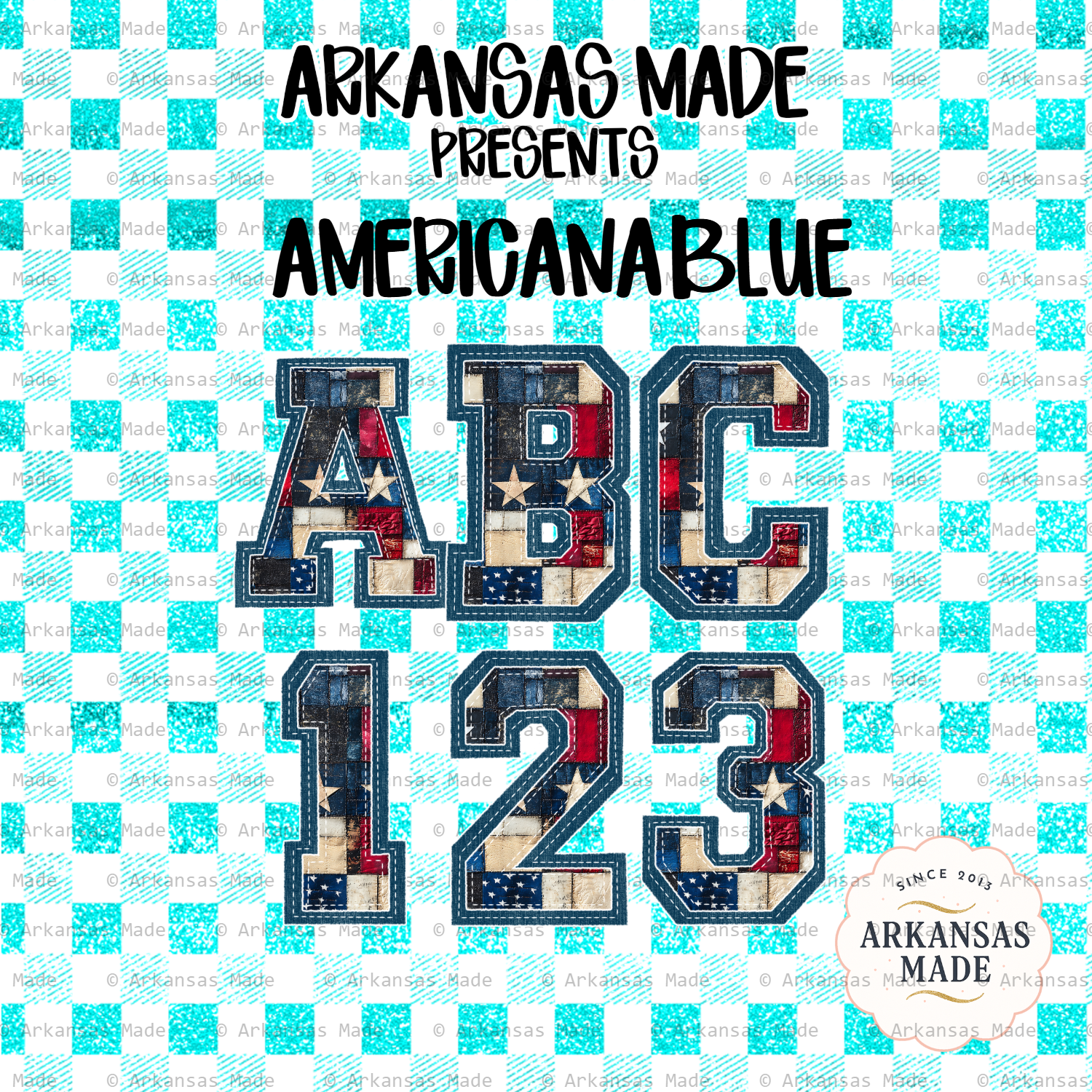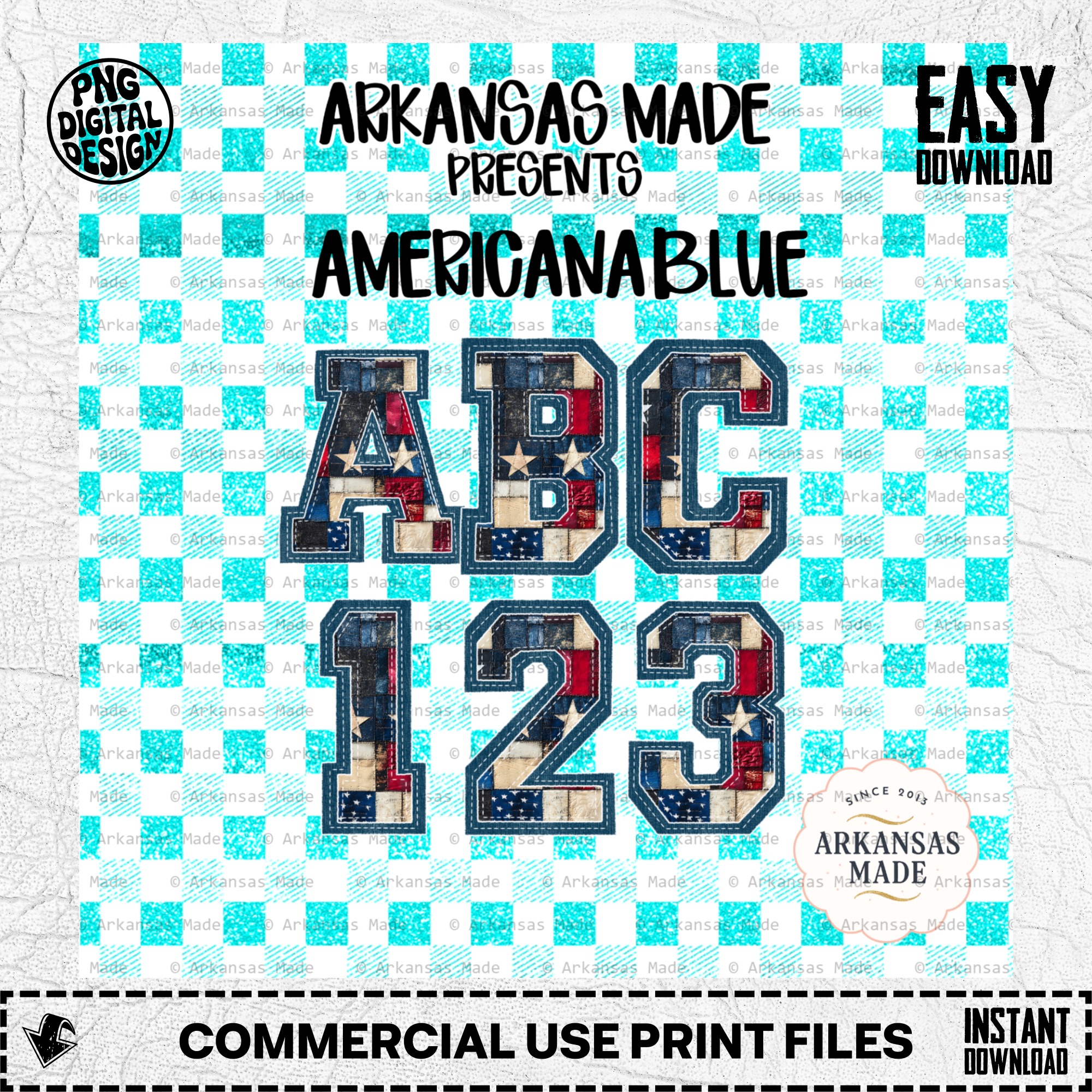
Americana Blue Alpha PNGs, Patriotic American Flag Font, 4th of July Quilt Patchwork Alphabet Numbers Digital Download for Sublimation
Americana Blue Alpha PNGs feature a patriotic American flag quilt patchwork design, perfect for 4th of July crafts and sublimation projects. Embrace rustic charm with this unique stitched alphabet and numbers, ideal for DIY enthusiasts and small business owners. This digital download set brings a vintage, country aesthetic to your designs, celebrating American pride. A fantastic resource for creating gifts for patriotic holidays, family events, or adding a touch of Americana to apparel and home decor.